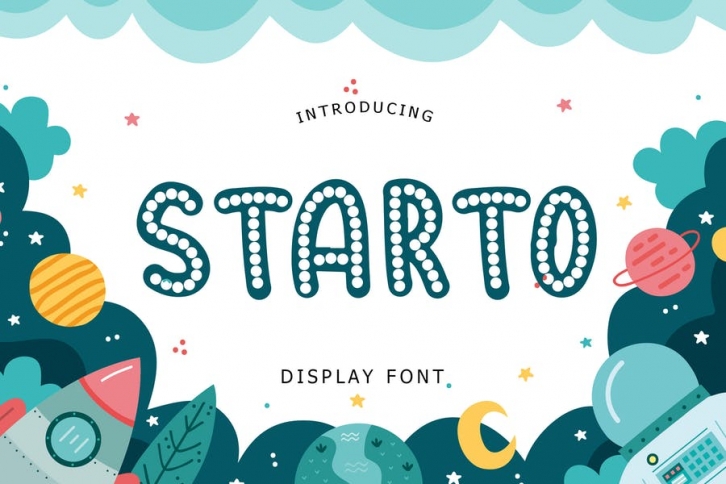
Starto is a cute and amazing display font that will make children's themed designs stand out!
Starto is perfect for branding projects, logo, book cover design, tshirt designs, social media posts, advertisements, product packaging, product designs, label, watermark, invitation, stationery and any projects.